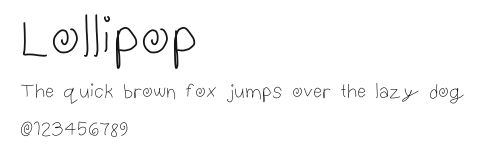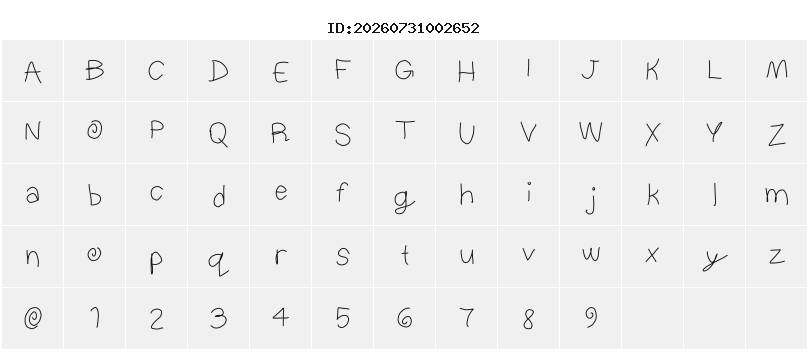
• Font Name: Lollipop
• Full Font Name: Lollipop
• PostScript Name: Lollipop
About Lollipop.ttf
Lollipop.ttf is a modern, elegant sans-serif font designed for ultimate readability and visual harmony. Perfect for branding, headlines, web design, and print materials.